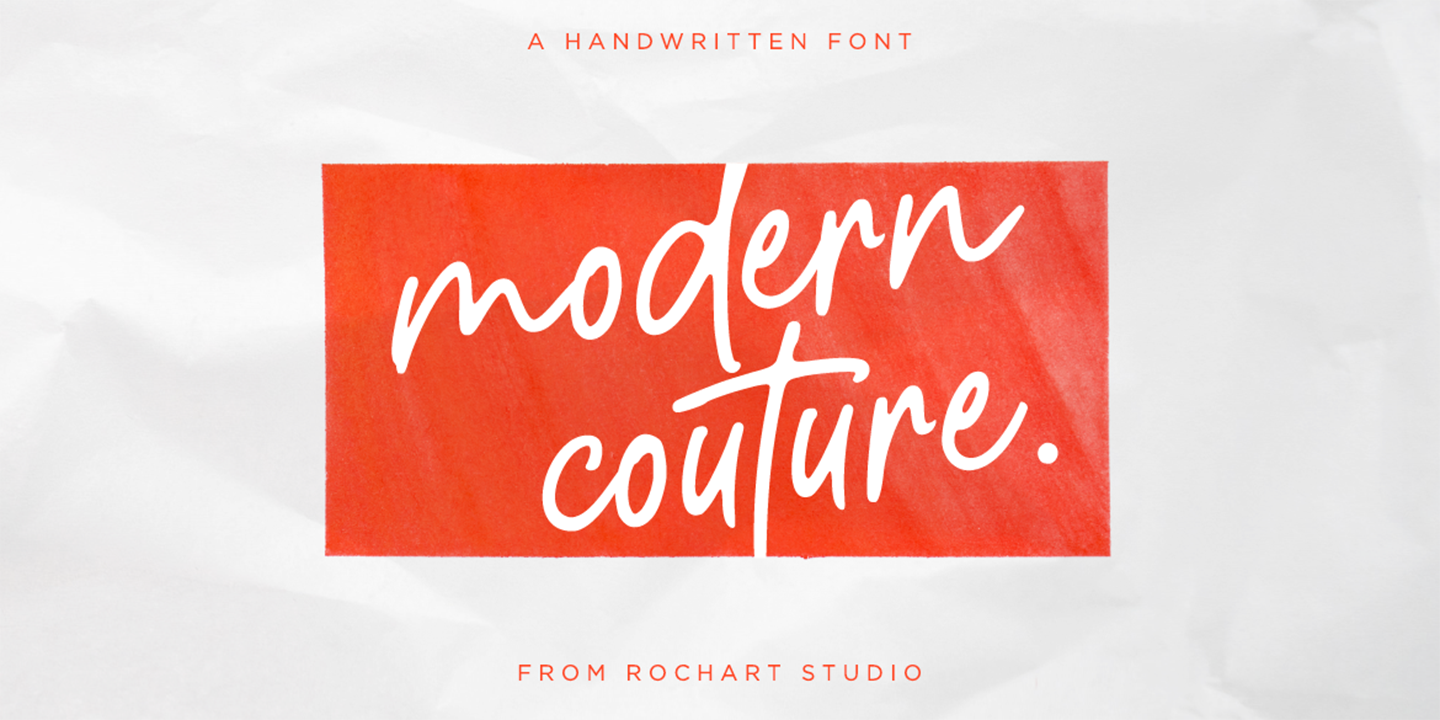
Modern Couture Font is perfect for high-fashion designer branding, luxury fashion house communications, couture atelier signage, contemporary fashion magazine layouts, premium runway show materials, and sophisticated fashion week campaigns. Its avant-garde character makes it ideal for fashion designers, luxury fashion brands, fashion photographers, style consultants, and any application requiring cutting-edge typography that conveys fashion innovation, couture sophistication, and the artistic excellence of contemporary high fashion and modern design aesthetics.
Modern Couture Font is exciting because it embodies the innovative artistry and sophisticated craftsmanship of contemporary haute couture through elegantly modern letterforms that reflect the precision and creative vision driving today's fashion industry. Its couture proportions and fashion-inspired details evoke the meticulous attention to detail found in high-end fashion construction and the artistic innovation that defines cutting-edge couture design, making it perfect for brands at the forefront of fashion evolution. The font's couture character transforms communications into expressions of fashion artistry.
Modern Couture Font family includes fashion-forward weight variations typically featuring Ultra Light, Light, Regular, Medium, Bold, and Black options with contemporary styling that maintains couture authenticity. The family often incorporates fashion symbols, couture elements, and sophisticated ornaments designed for luxury fashion applications, providing designers with comprehensive tools for creating authentic, fashion-focused typographic compositions.